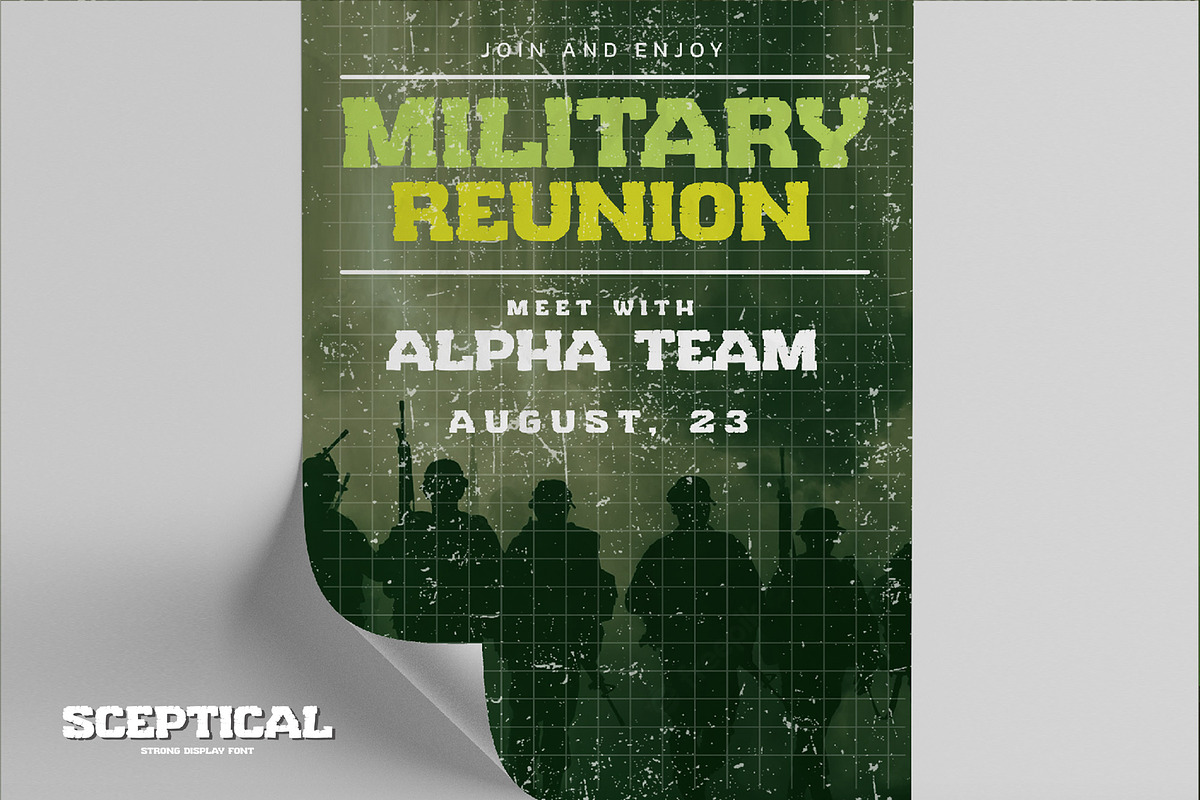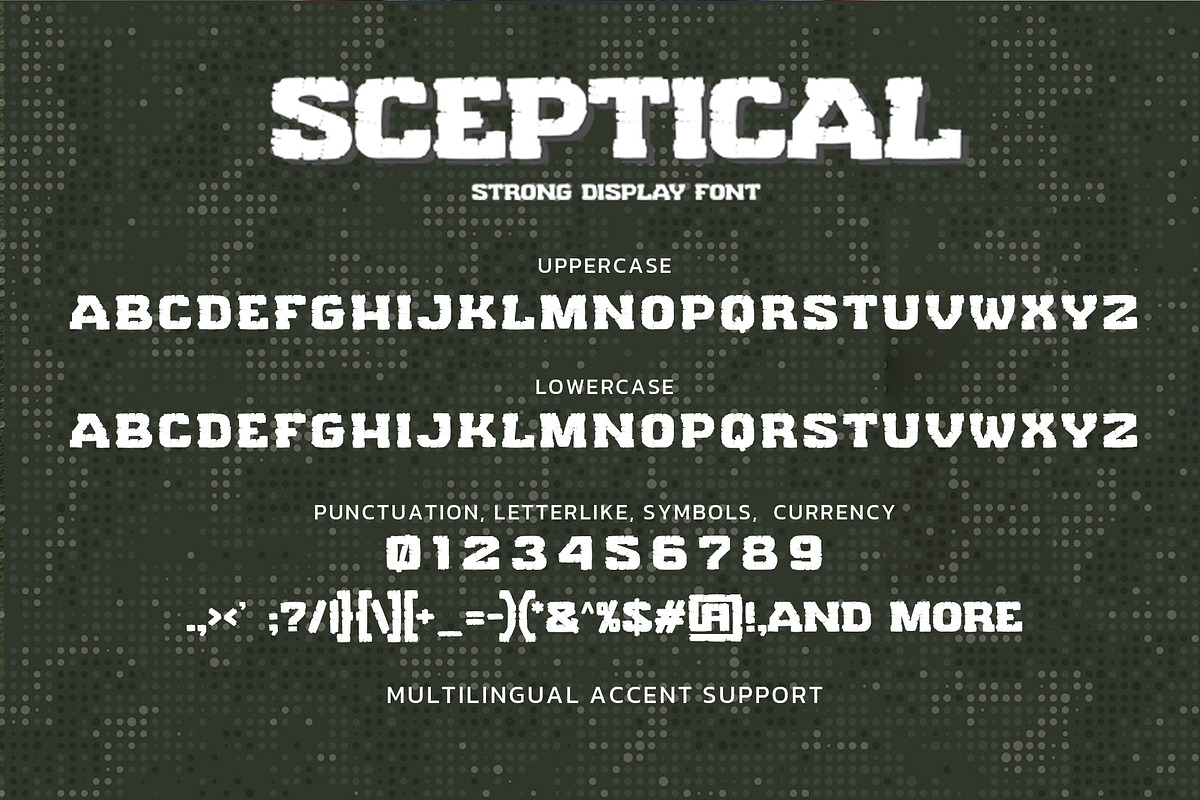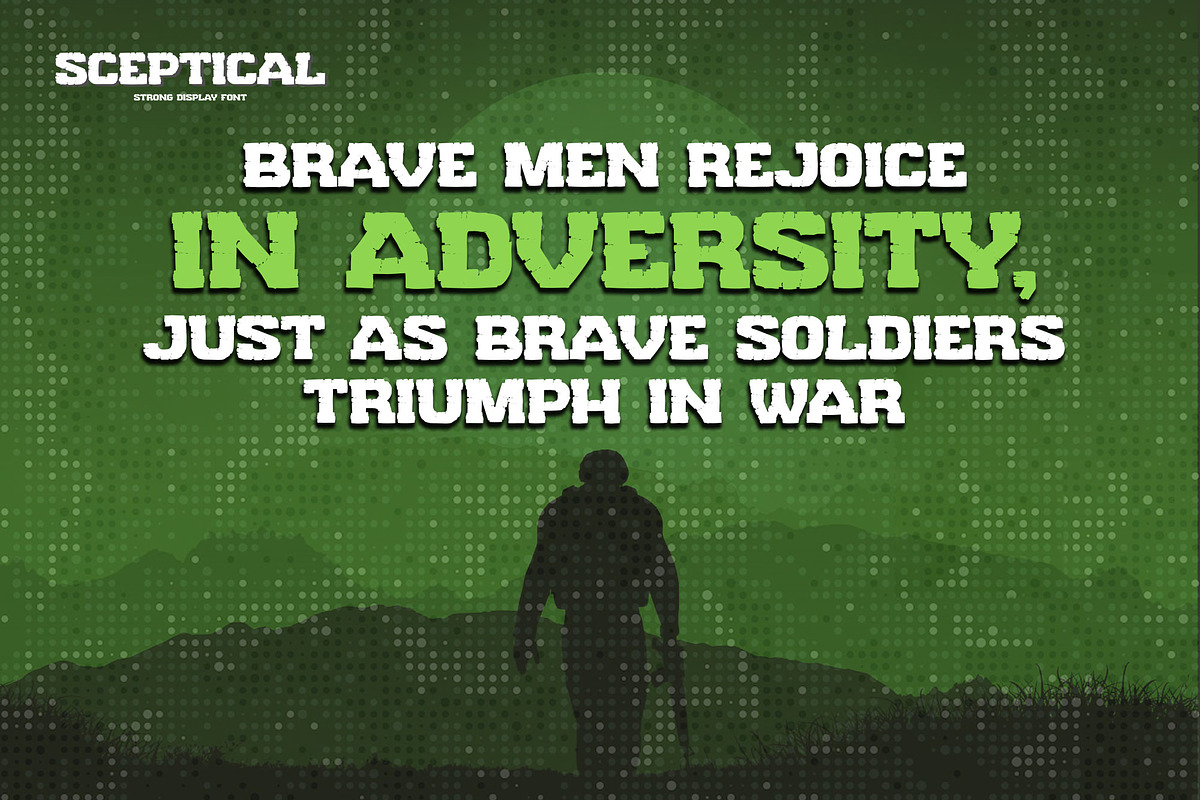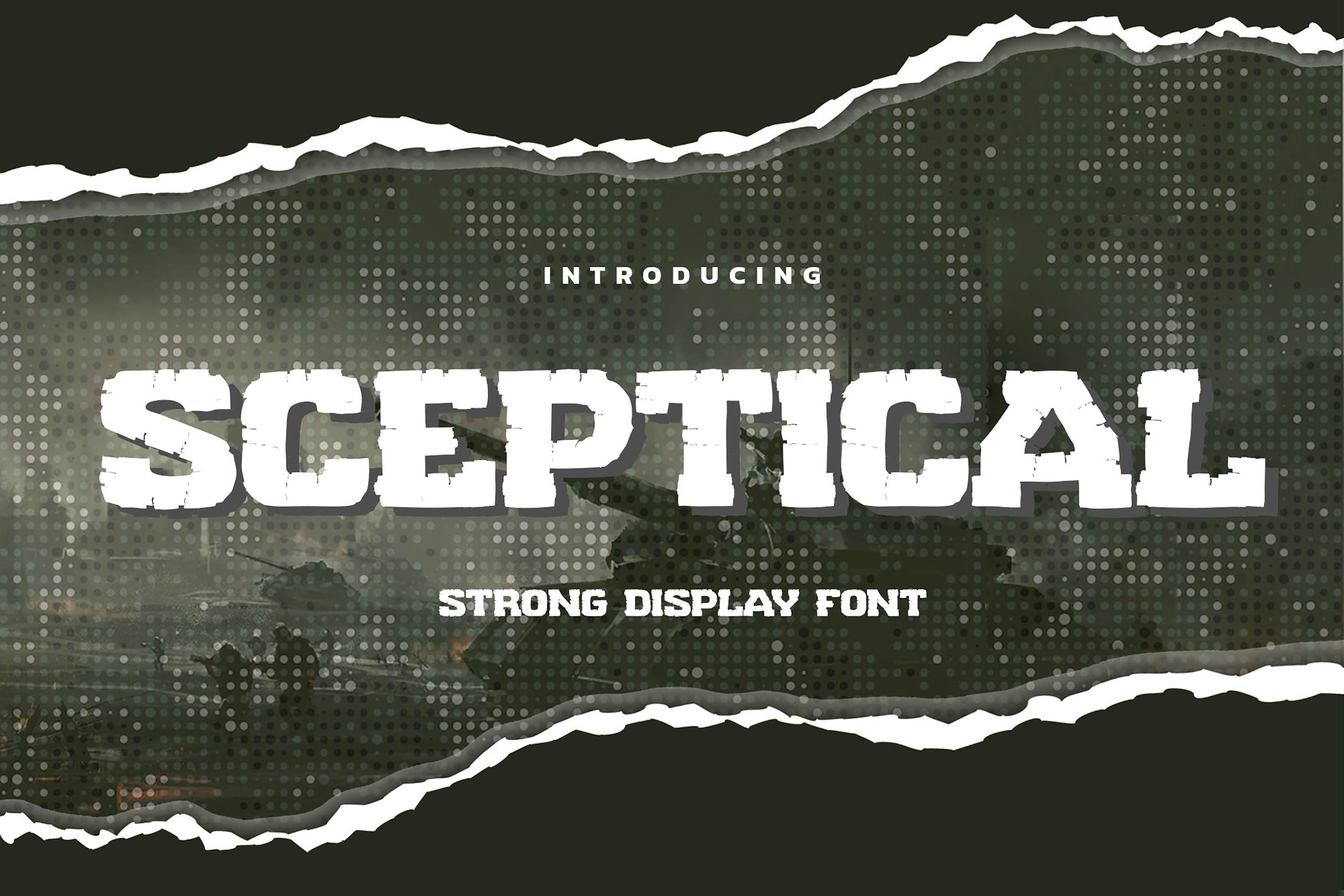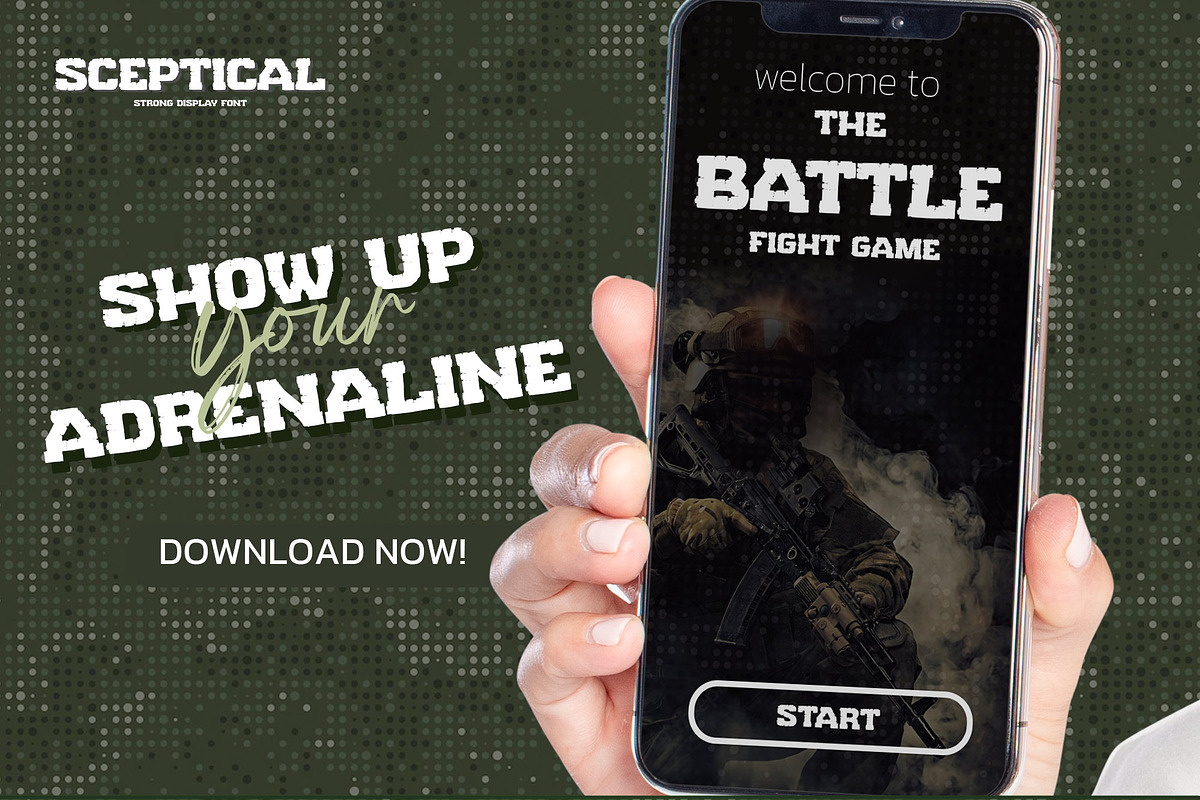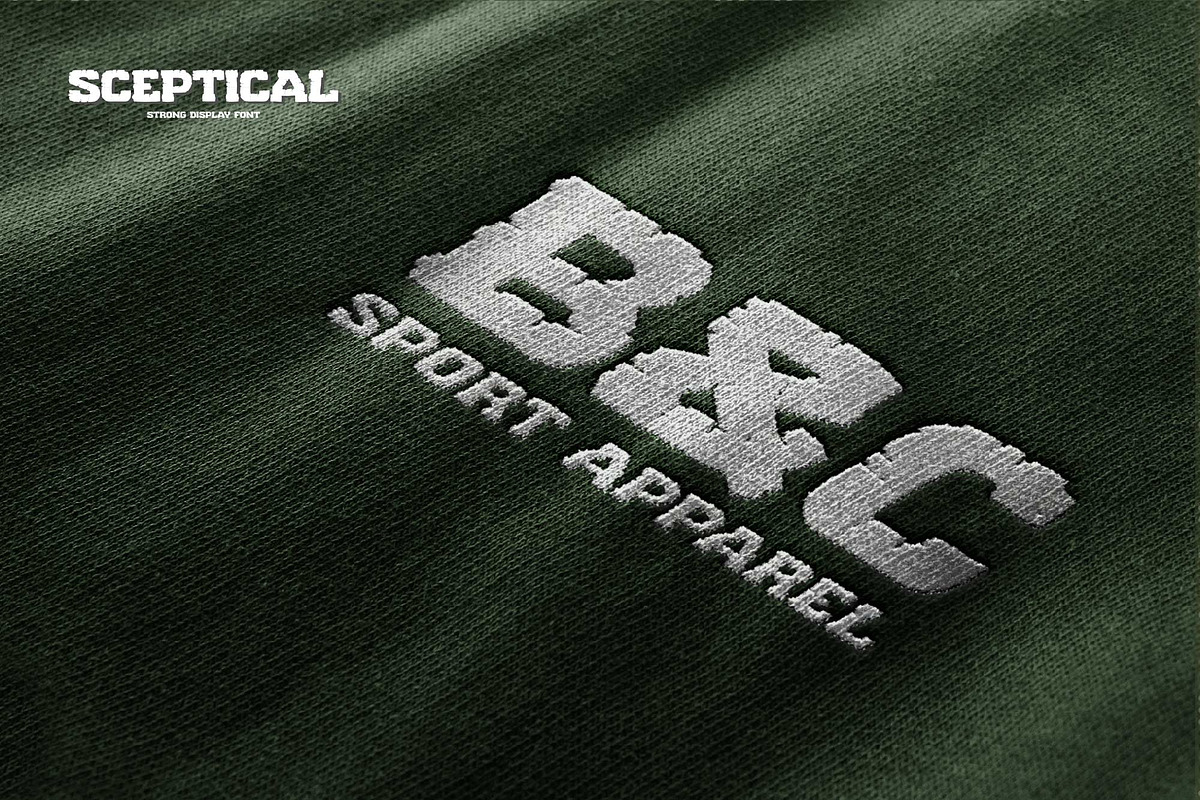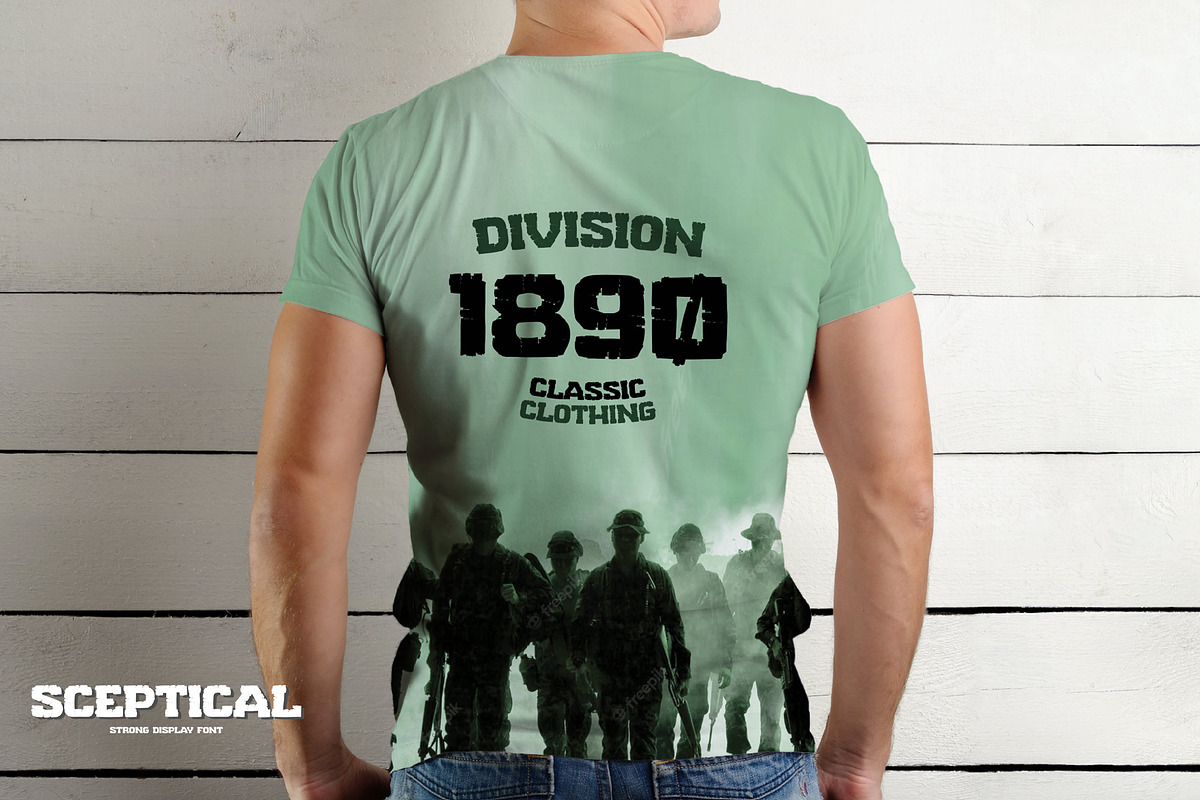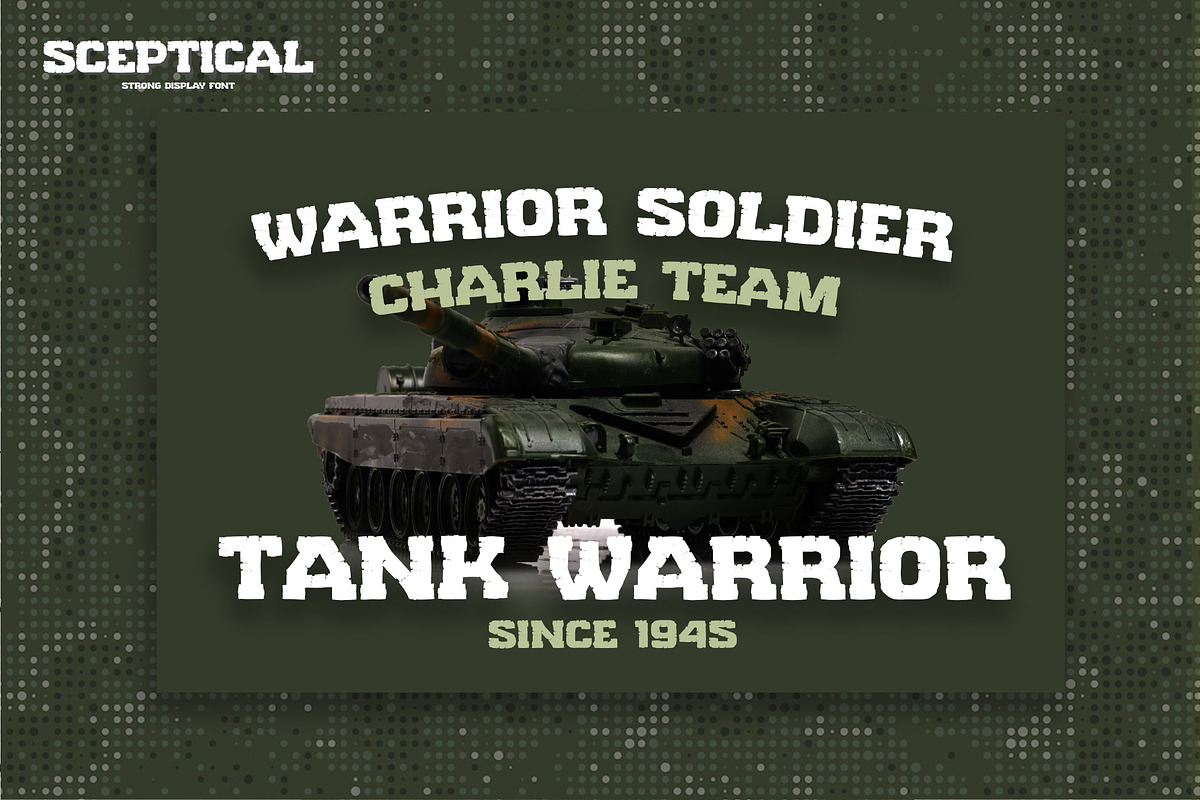
SCEPTICAL - Strong Display Font
Hello Everyone, introduce our new product SCEPTICAL is Strong Display Font with a natural feel. This handmade font will make your design has a beautiful natural touch for each details. It is perfect for any design project as Invitation,logo, book cover, craft or any design purposes. SCEPTICAL is Inspired by Logo style and combination with Unique Craft style. that will fulfill your design needs for quotes,sporty theme, logotype, wordmark, etc. This has many opentype features and support multi language. This font is PUA encoded which means you can access all of the magical glyphs with ease!